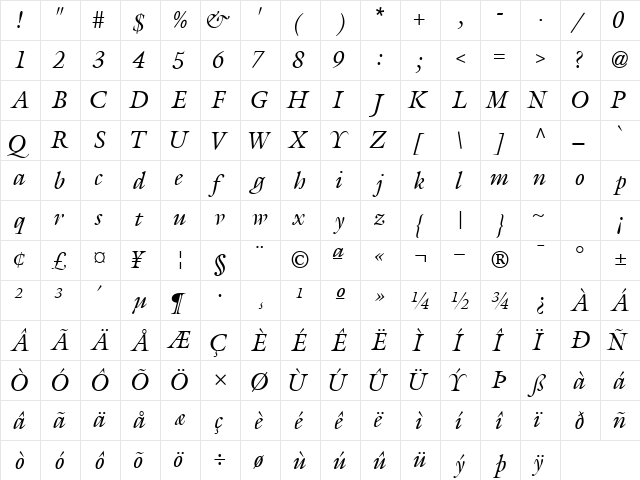
AcanthusSSK Italic
Design Context for AcanthusSSK Typeface
AcanthusSSK offers clean, dependable letterforms without strong stylistic allegiance, making it a practical choice for designers who need flexibility. The dynamic lean of this cut emphasises speed and emphasis in any layout.
Pro Tip: Use AcanthusSSK for emphasis, pull quotes, and subheadings where its slanted energy can add rhythm to the layout.